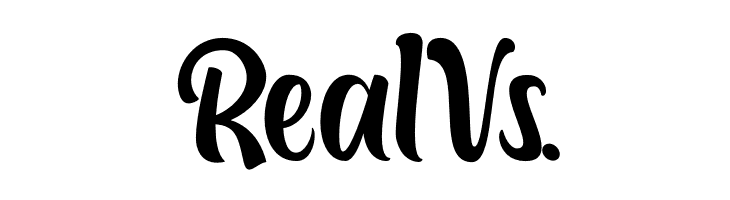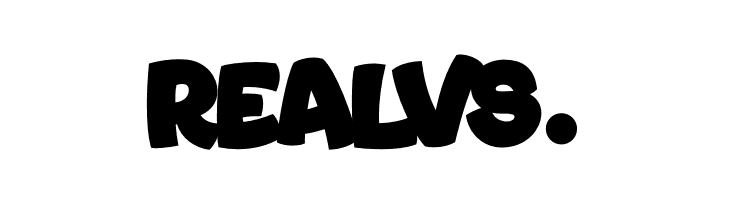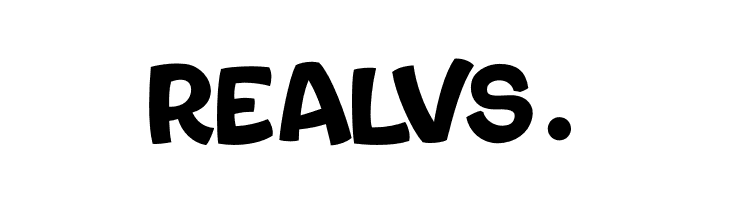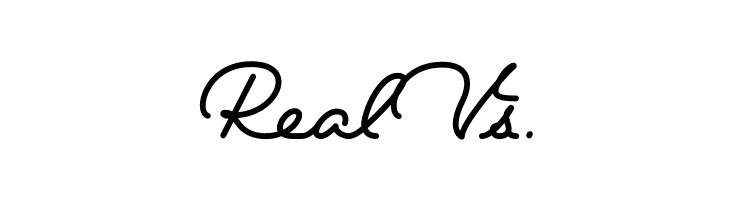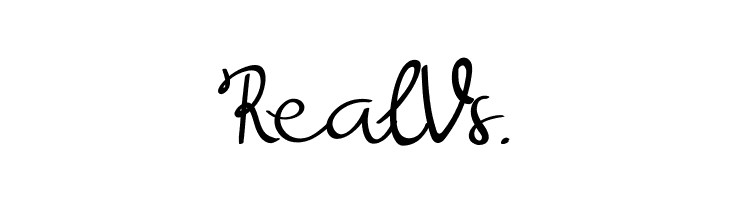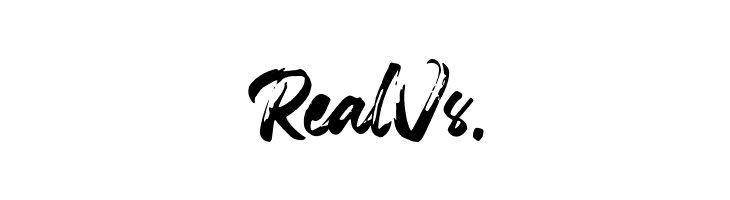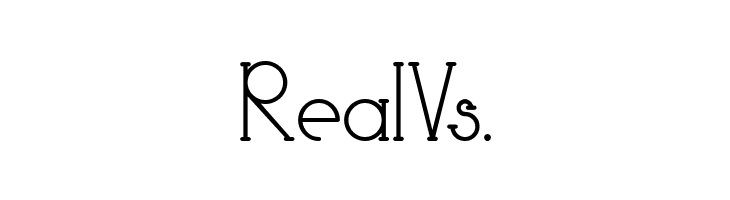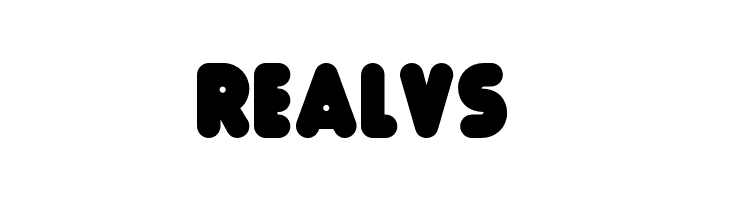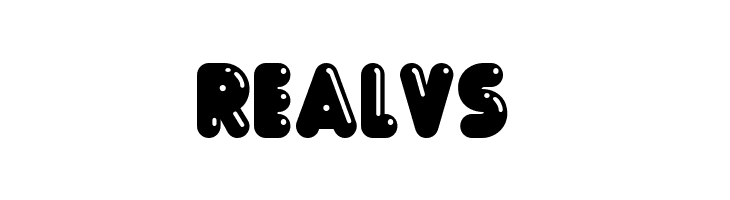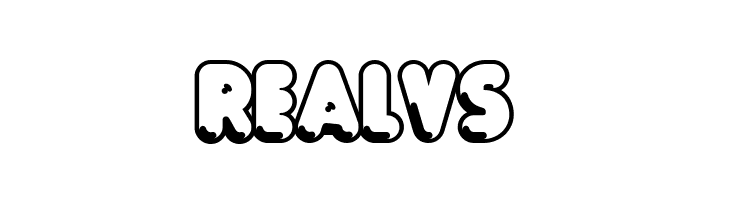
A graceful script font with flowing, cursive letters and elegant swashes.
An elegant, flowing script font with interconnected letters and subtle flourishes.
A playful, cursive font with fluid, interconnected strokes and a whimsical charm.
A bold, expressive brush script font with dynamic, fluid strokes.
A bold and expressive brush script font with dynamic strokes.
A bold, playful script font with a handwritten feel.
A bold, rounded sans-serif font with smooth curves and uniform strokes.
A bold, hand-drawn font with an energetic and rugged style.
A dynamic handwritten font with fluid, irregular strokes and a creative flair.
A playful, handwritten cursive font with thin, elongated strokes.
A playful, bold, hand-drawn font with a cartoonish style.
A bold, textured font with a brush-like appearance, perfect for impactful designs.
A bold, playful font with rounded edges and whimsical cutouts.
A bold, playful font with bubble-like design and circular accents.
A bold, playful font with thick outlines and rounded, bubbly characters.
A bold, playful font with rounded contours and a 3D effect.
A bold, rounded font with a playful and friendly appearance.
A bold, rounded font with a playful and friendly style.
A bold, decorative font with circular cutout patterns for a playful, artistic look.
A bold, geometric font with a strong, condensed design.
A bold, textured script font with a vintage, hand-painted style.
A dynamic and flowing script font with elegant cursive letterforms.
A cursive, handwritten font with elegant loops and a playful style.
A bold, geometric font with a futuristic, industrial style.
An elegant and flowing script font with sophisticated, cursive letterforms.
A modern, elegant font with thin strokes and rounded terminals.
A lively and playful script font with a hand-drawn aesthetic.
A playful and energetic script font with flowing cursive letters.
A playful, handwritten font with a lively and bouncy style.
A bold, playful font with rounded, exaggerated shapes for a lively appearance.
A bold, outlined font with a playful, bouncy style and a collegiate vibe.
A lively, flowing script font with interconnected, cursive letters.
A playful, hand-drawn font with bold, rounded outlines and a cartoon-like style.
A playful, bouncy font with bold, rounded letters and a whimsical style.
An elegant, flowing script font with a handwritten appearance.